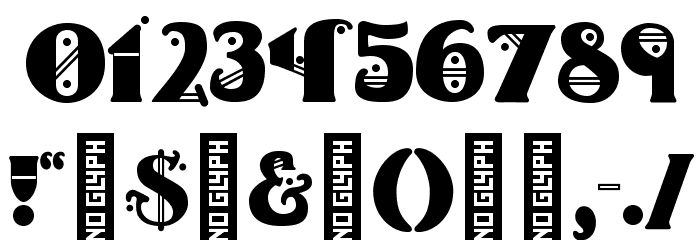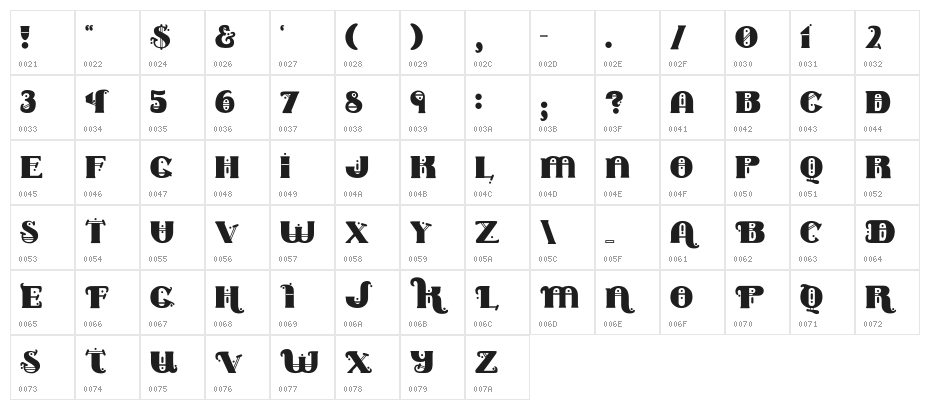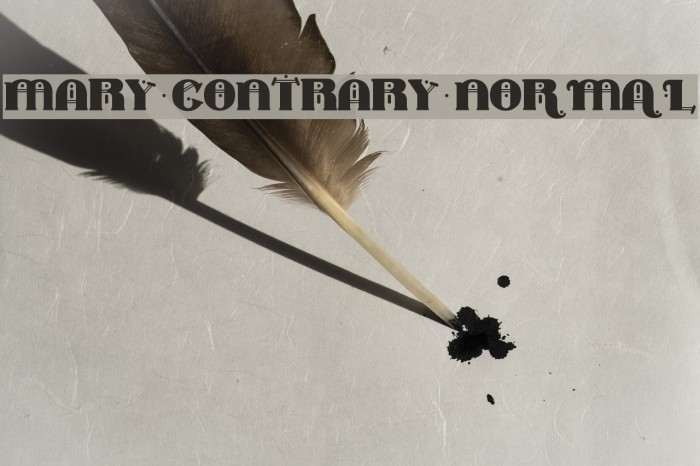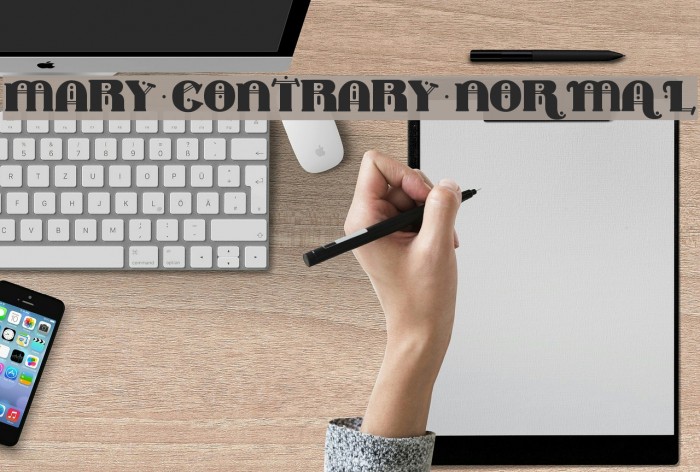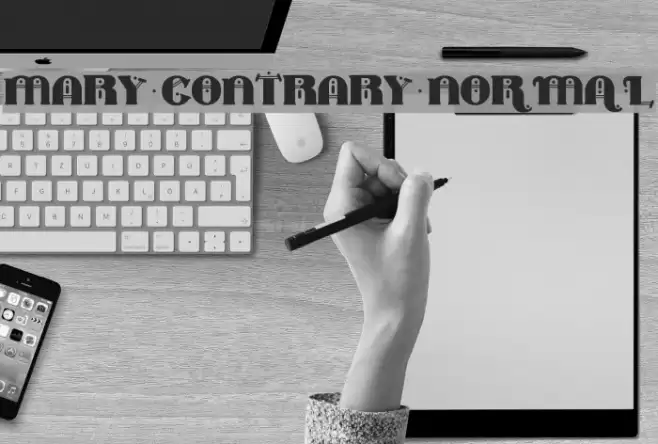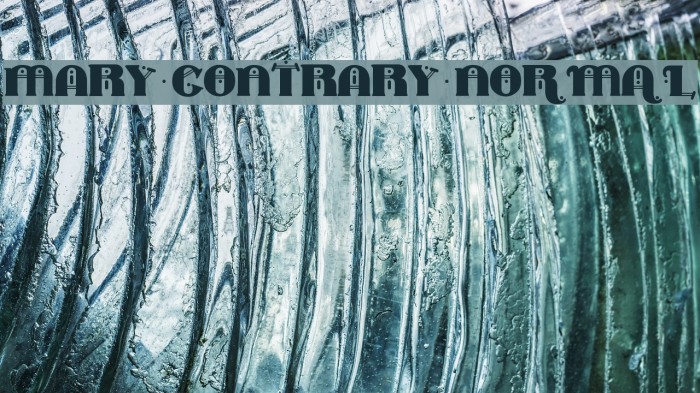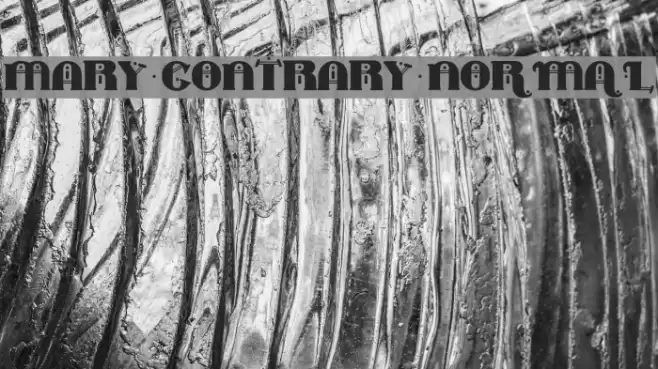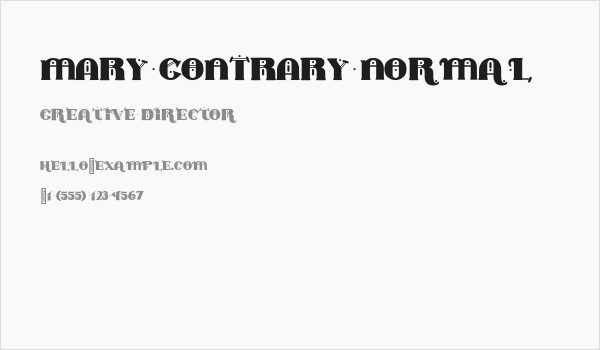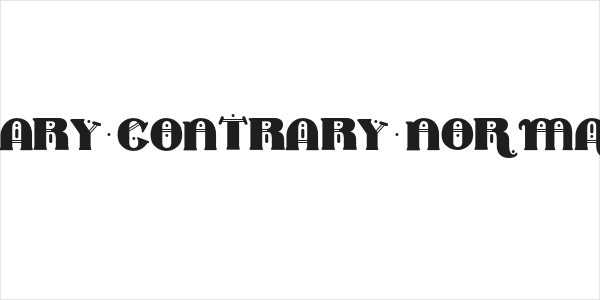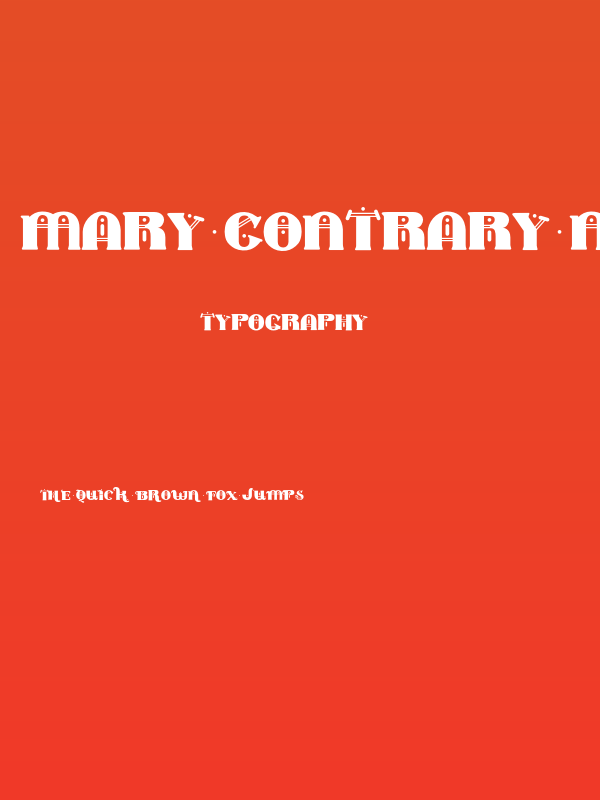
MARY CONTRARY Normal Font
MARY CONTRARY Normal Description
This font is a bold and decorative typeface with a unique and playful style. Each character is adorned with intricate details, including dots and curls, giving it a whimsical and artistic appearance. The uppercase and lowercase letters maintain a consistent design, with the uppercase being slightly more pronounced. Numbers are equally stylized, featuring bold strokes and decorative elements. The special characters, however, are marked as 'NO GLYPH', indicating they are not available in this font. Overall, this typeface exudes a sense of creativity and fun, making it suitable for projects that require a standout and artistic look.
| Use Case | Logos, Posters, Invitations |
| Proposed Projects | Ideal for creative projects such as posters, invitations, and branding that require a playful and artistic touch. |